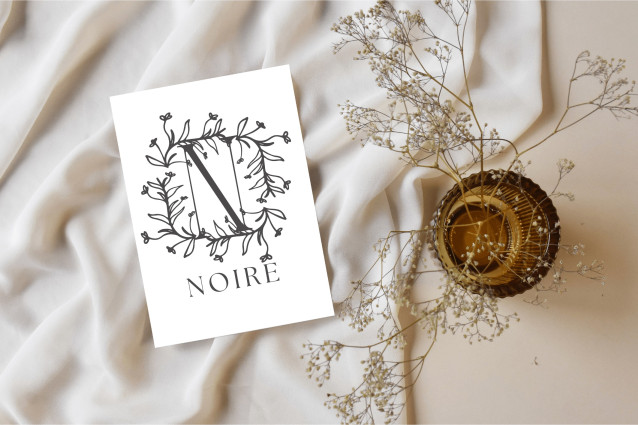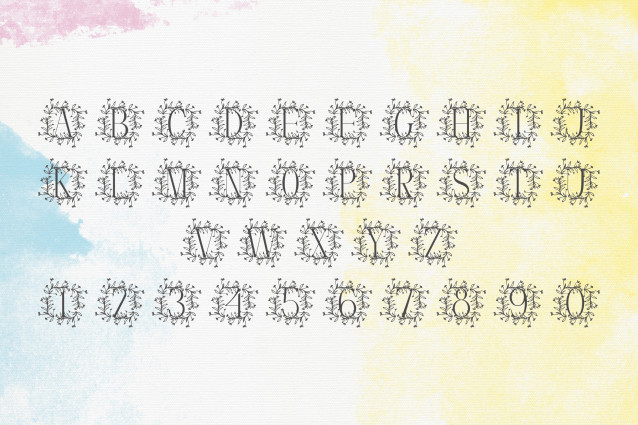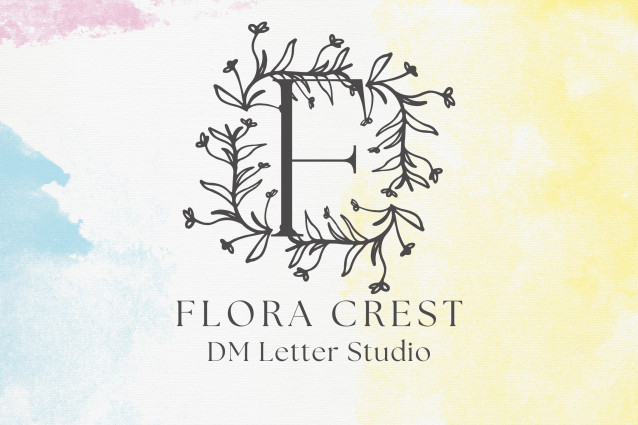
Flora Crest Monogram Font
Flora Crest Monogram Font is an elegant serif monogram font inspired by vintage botanical crests and floral heraldry. Each uppercase letter is paired with refined floral elements, making it perfect for timeless monograms, wedding branding, and luxury packaging. With its classic curves and ornamental details, this font adds a touch of nature-inspired sophistication to any personalized design.